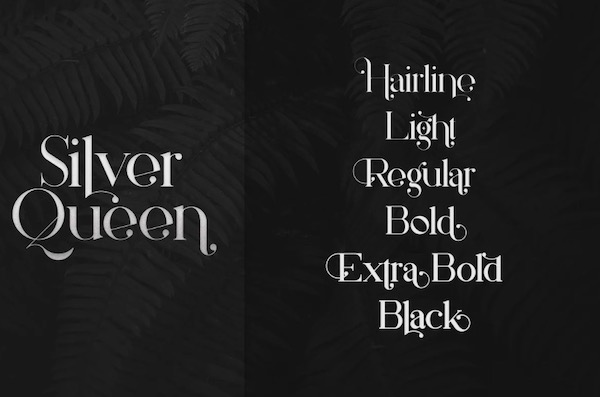
Silver Queen Font has six unique and cool styles (Hairline, Regular, Thin, Bold, Extra Bold, Black). This gentle Serif font was created and shared by VPcreativeshop along with a gorgeous look in many formal and informal designs.
Silver Queen Serif Font
Font family: Silver Queen Font Family (6 unique styles)